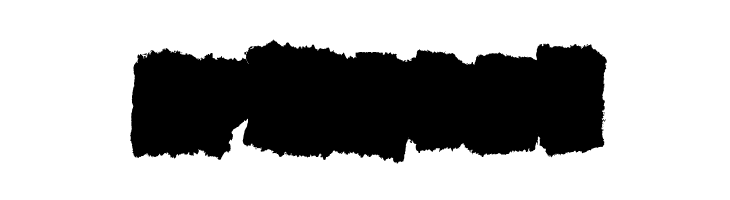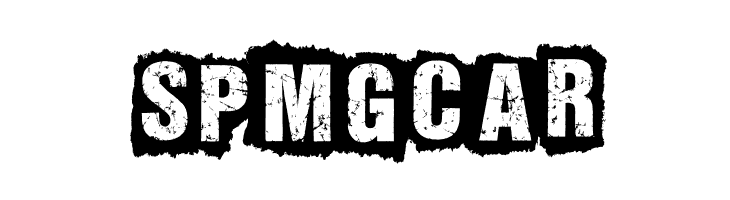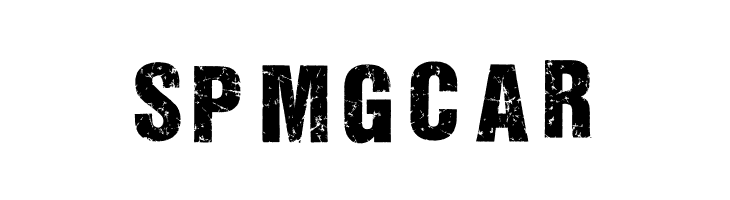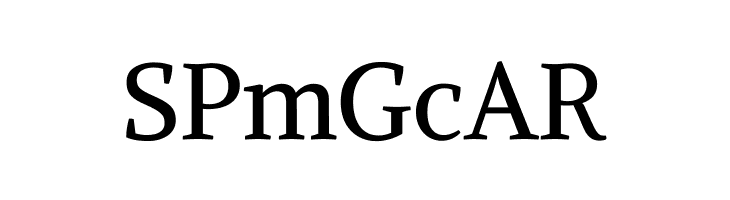
A classic serif font with a modern touch, offering elegance and readability.
A serif typeface with angular, sharp serifs and a strong, structured appearance.
A bold, angular serif font with a modern twist.
A classic serif font with elegant strokes and balanced readability.
A serif font with angular design and sharp serifs, offering a modern yet classic look.
A bold, distressed font with a rugged, textured appearance.
A bold, distressed font with a torn, rugged appearance.
A bold, distressed font with a vintage, rugged texture.